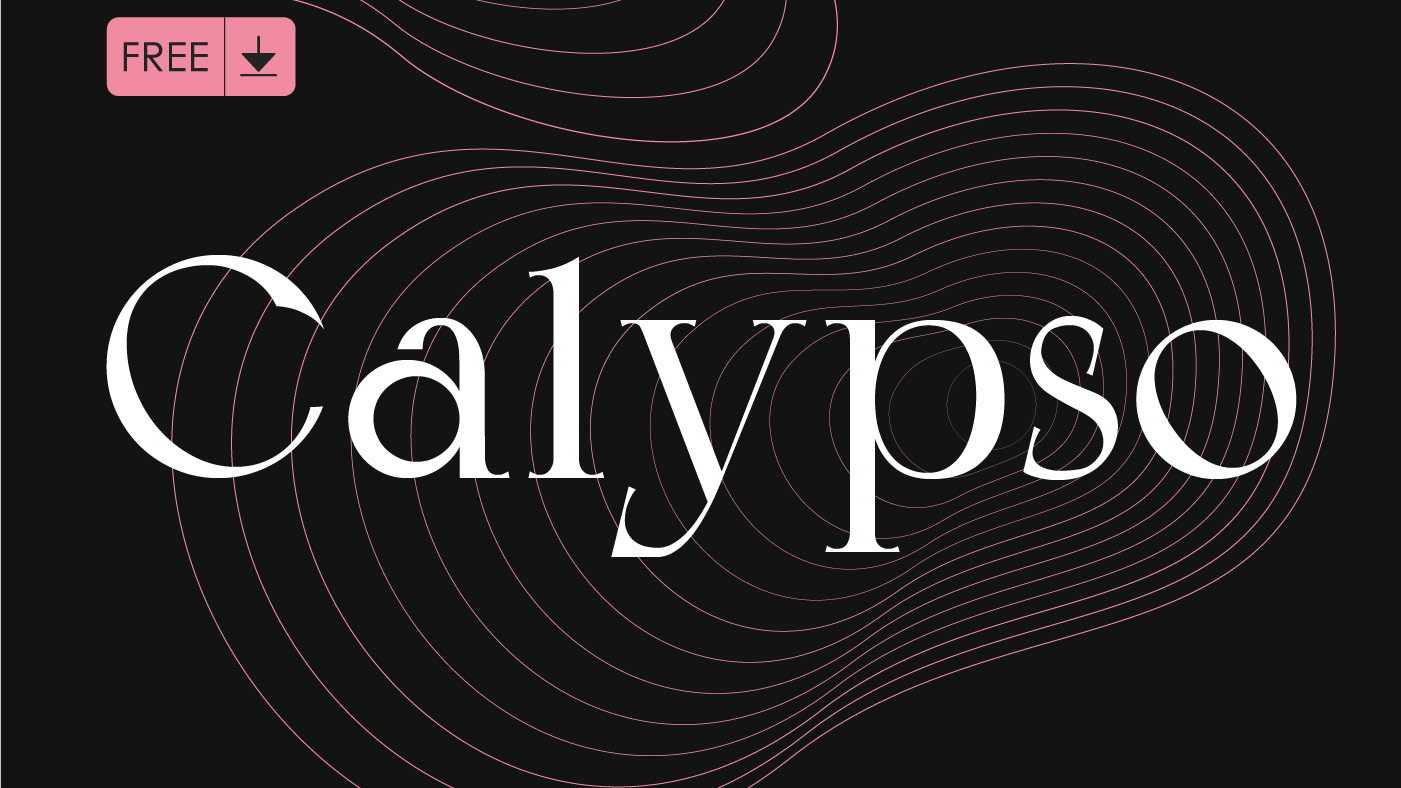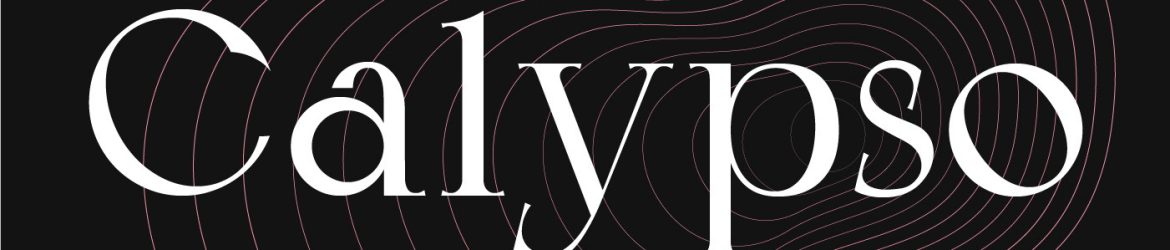
Download Calypso font, a contrasting typeface that’s sophisticated and bold at the same time. Calypso is a display font useful for headings, short, medium or long text
Designer: Karyna Manukian